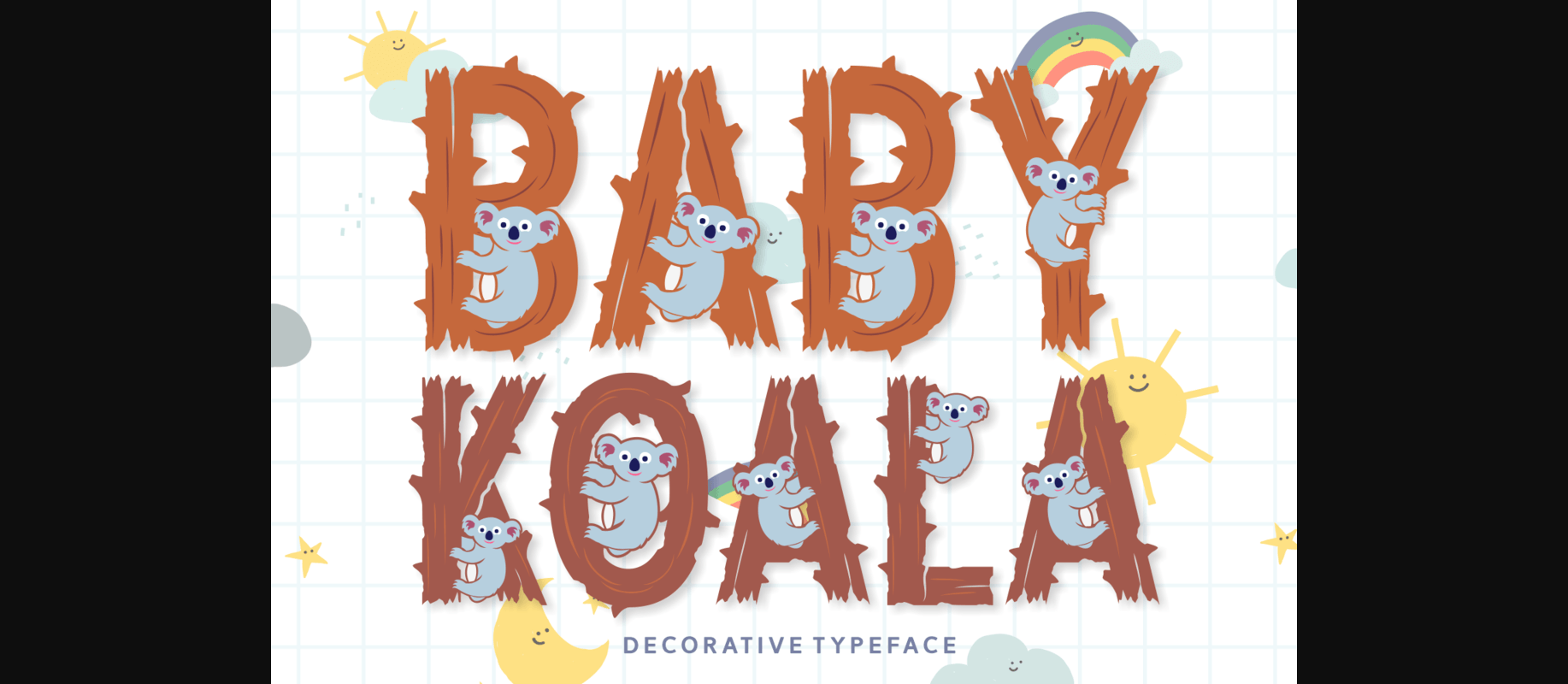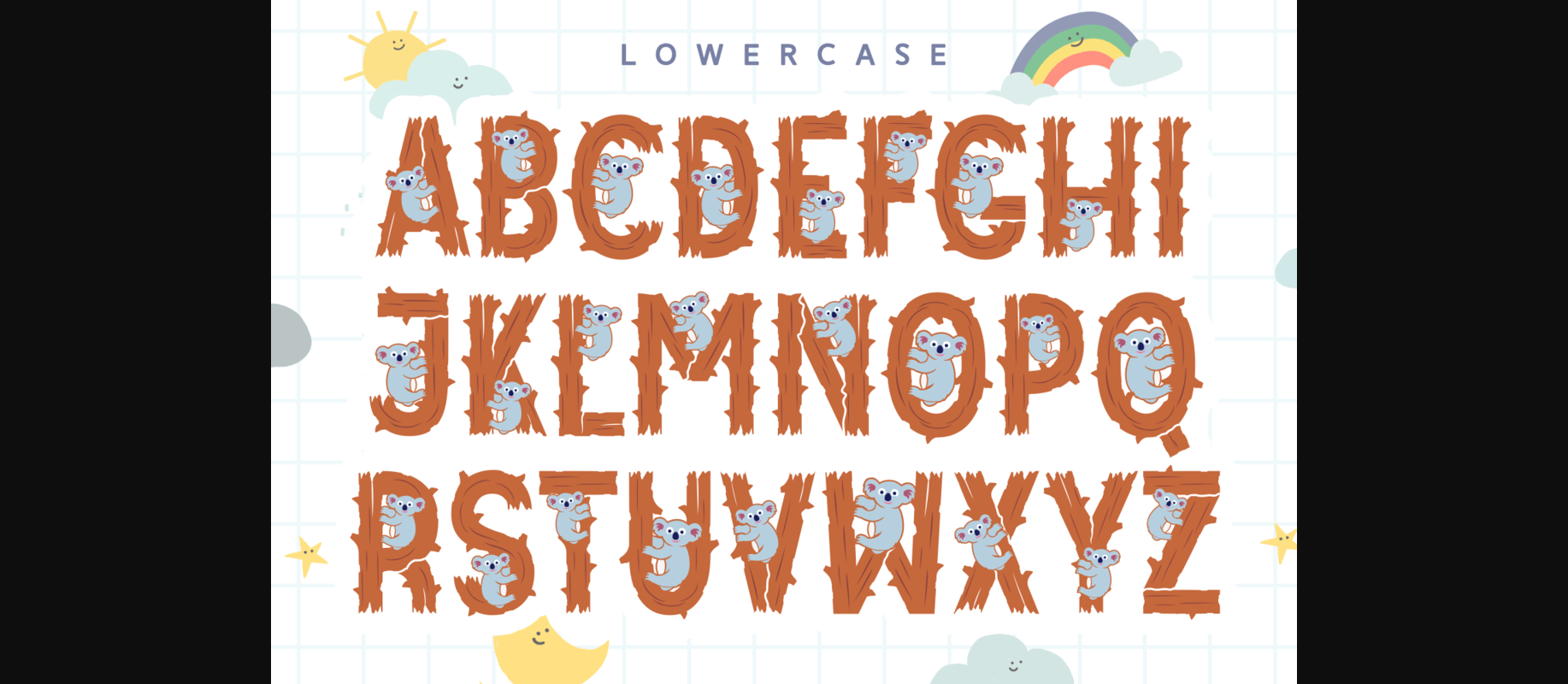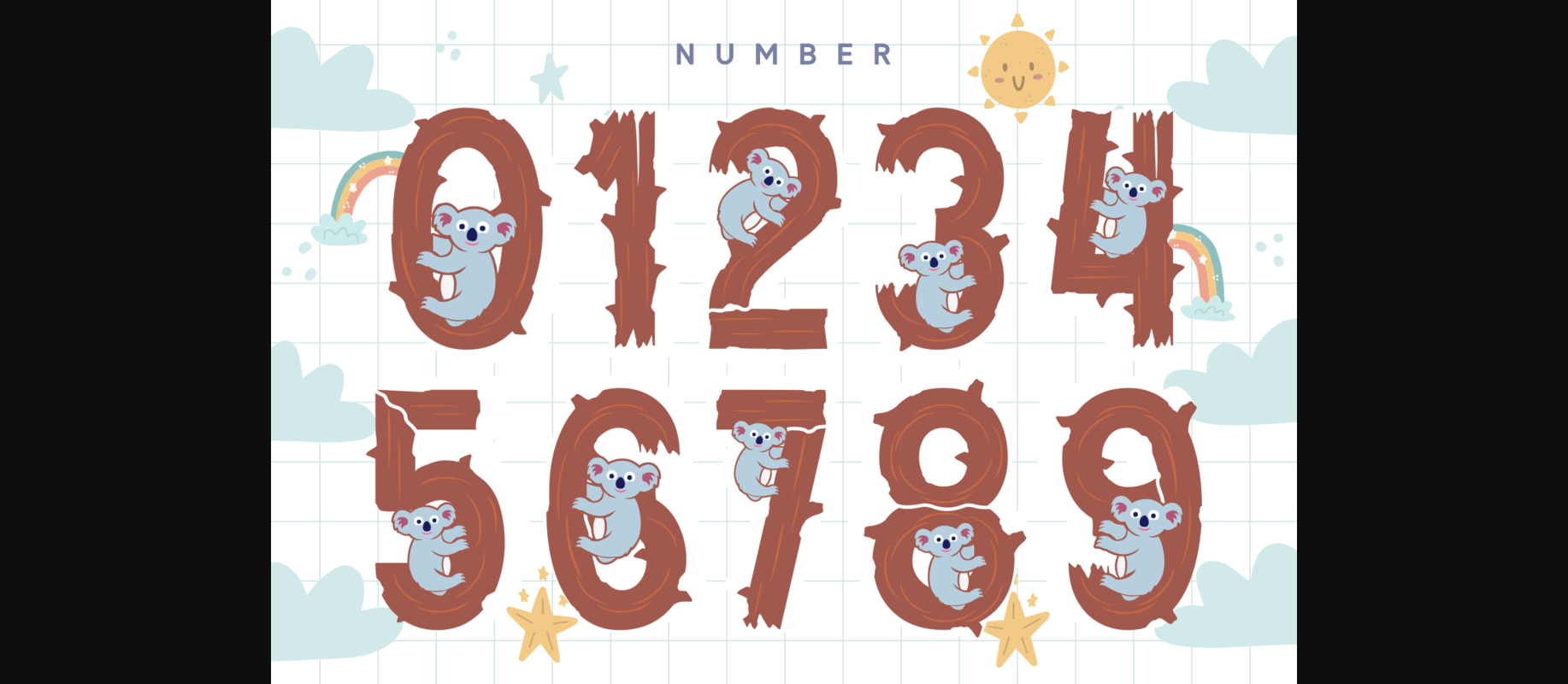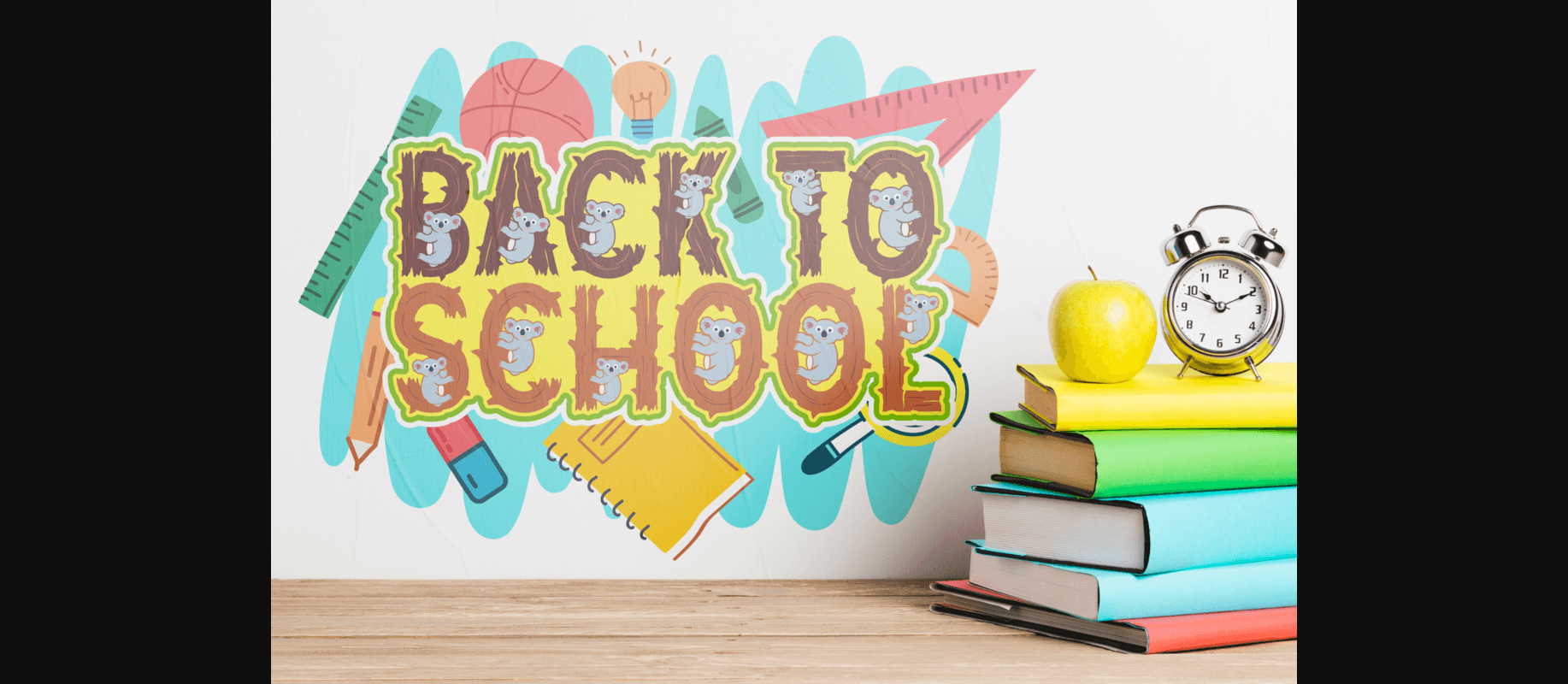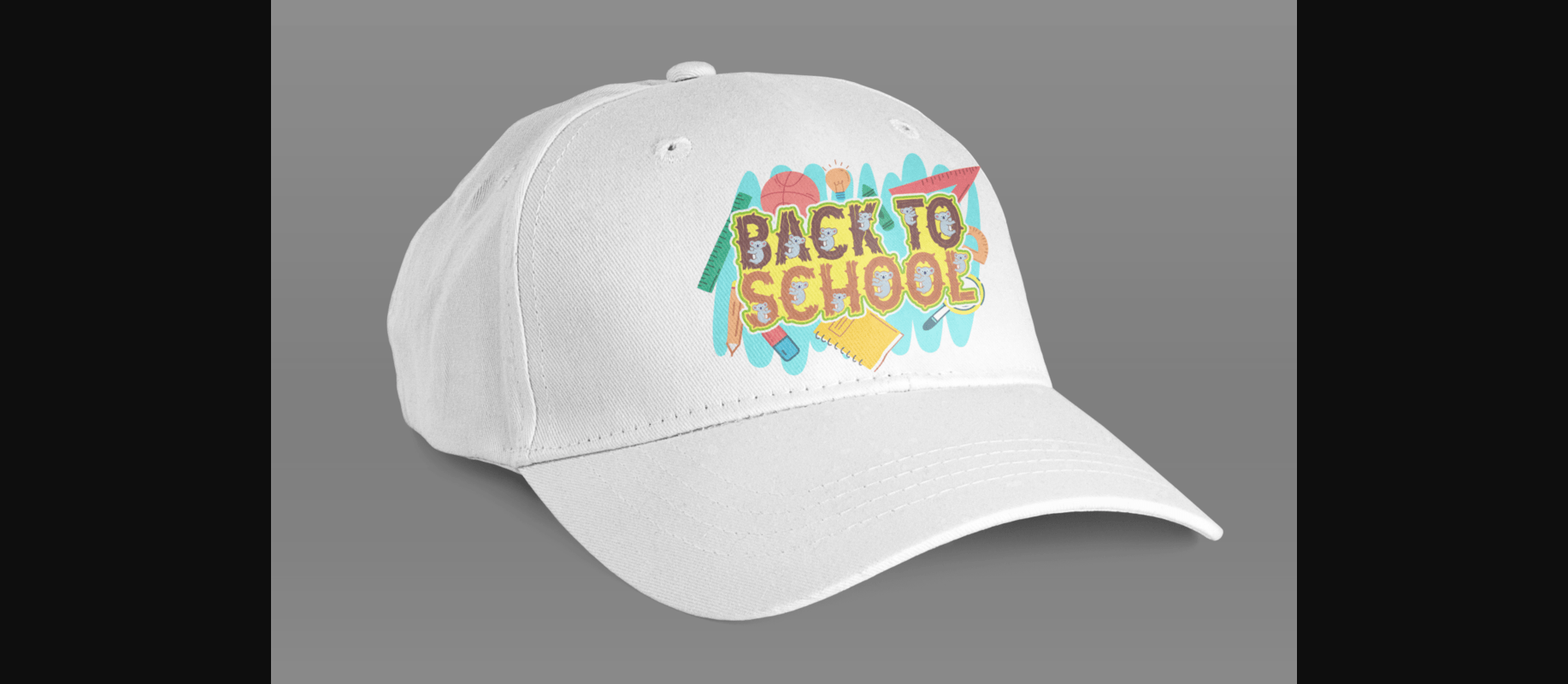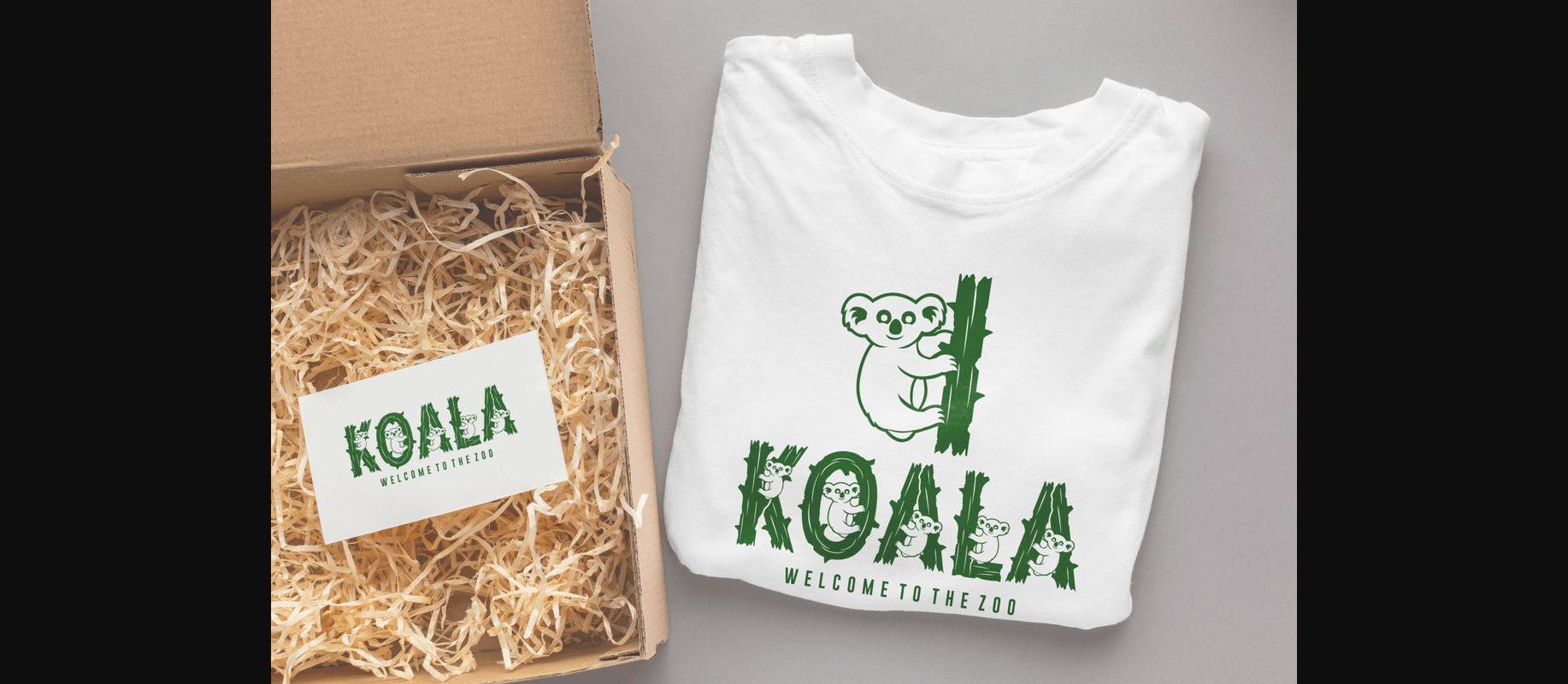
About Baby Koala Font
Baby Koala is an adorable animal-themed decorative font. Create extraordinary designs with this cute and unique font! Looks perfect on t-shirts, mugs, logos, notebook covers, baby onesies, and many more.